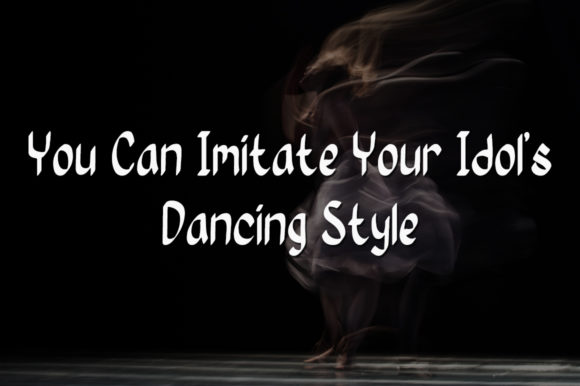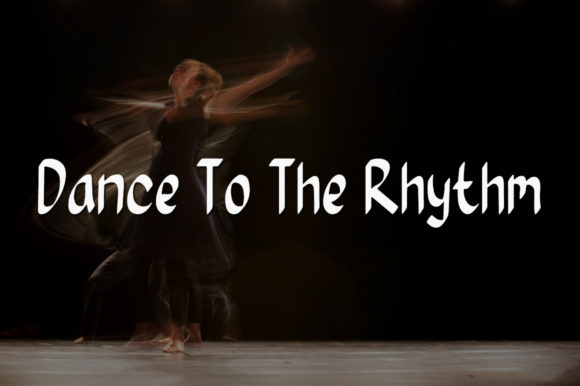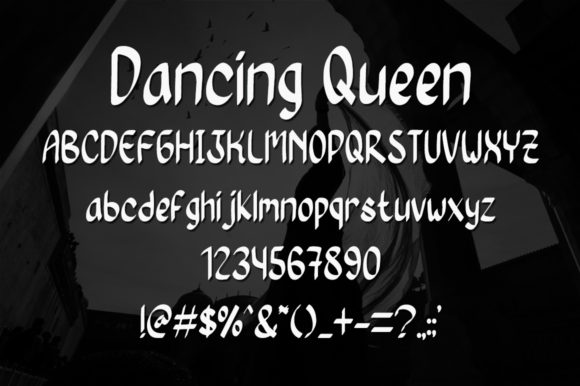
Introduction to Dancing Queen Font
Have you ever been working on a creative project and stumbled upon the perfect font, only to realize that it’s exactly what brings your design to life? That’s what happened to me when I discovered the Dancing Queen Font. Its sweet and friendly handwritten style immediately caught my attention, and I knew I had to share it with fellow designers.
| 👤 Author | rangkaiaksara |
As a design resource, the Dancing Queen Font is incredibly versatile, making it a valuable addition to any project. Its natural and unique style lends itself perfectly to a wide range of designs, from wedding invitations to social media graphics. And the best part? It’s free to download, so you can experiment with it without breaking the bank.
Whether you’re working on a high-quality design for a client or a personal creative project, the Dancing Queen Font is sure to bring a touch of elegance and sophistication to your work. With its transparent background and high-quality design, you can be sure that your final product will look professional and polished.
Dancing Queen Font
- High-quality, elegant script font perfect for creative projects and design resources.
- Features a transparent background, allowing for seamless integration with various design elements.
- Comes in a single size, making it easy to scale and adjust to fit various design needs.
- Designed to be highly legible, with clear and smooth lines, making it ideal for use in titles, headings, and body text.
Honest Review: Dancing Queen Font
I recently had the opportunity to work with the Dancing Queen Font for a creative project, and I must say, it was a great addition to the design. The font is free to download, which is always a bonus for designers on a budget. The quality of the font is top-notch, with crisp and clear lines that make it perfect for a variety of design applications.
What works well with the Dancing Queen Font is its versatility. It’s perfect for creating a fun and lively atmosphere in a design, making it ideal for projects like posters, flyers, and social media graphics. The font also comes with a transparent background, which makes it easy to use in combination with other design elements.
- ✨ Great for creating a fun and lively atmosphere in designs
- ✨ Versatile and suitable for a variety of design applications
- ✨ High-quality and clear lines
However, there are a few limitations to consider. The font may not be as suitable for formal or professional designs, as it can come across as too playful or casual.
Overall, I was impressed with the Dancing Queen Font and would definitely consider using it again in future creative projects.
The Dancing Queen Font is ideal for:
- Party invitations and decorations
- Music festival and concert promotions
- Wedding and event planning materials
By incorporating this font into your design arsenal, you’ll be able to add a touch of whimsy and sophistication to your creative projects. Its versatility makes it perfect for a wide range of applications, from branding and advertising to digital art and graphic design. So why wait? Download the Dancing Queen Font today and experience the magic for yourself. Get ready to take your creative projects to new heights with this incredible design resource.